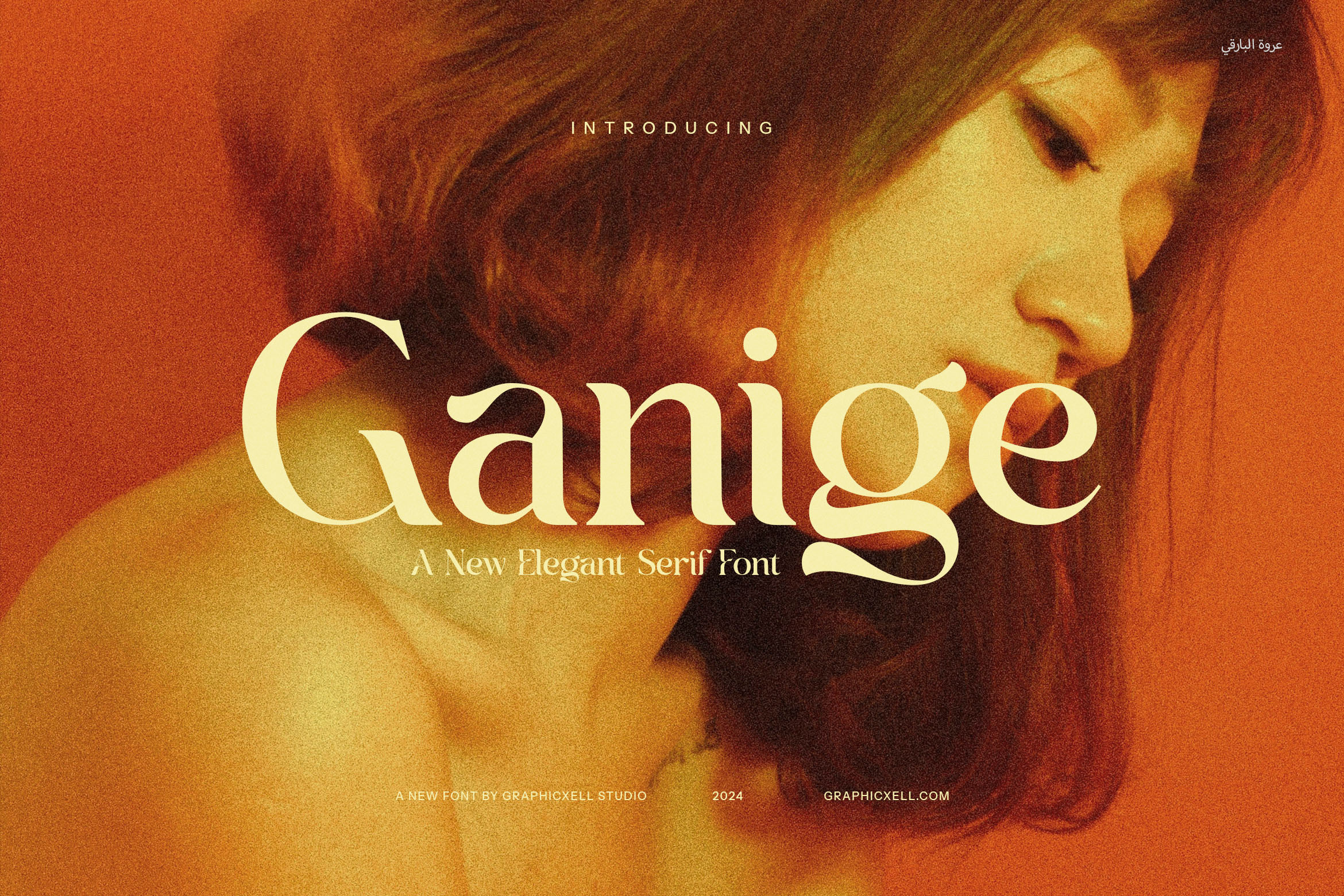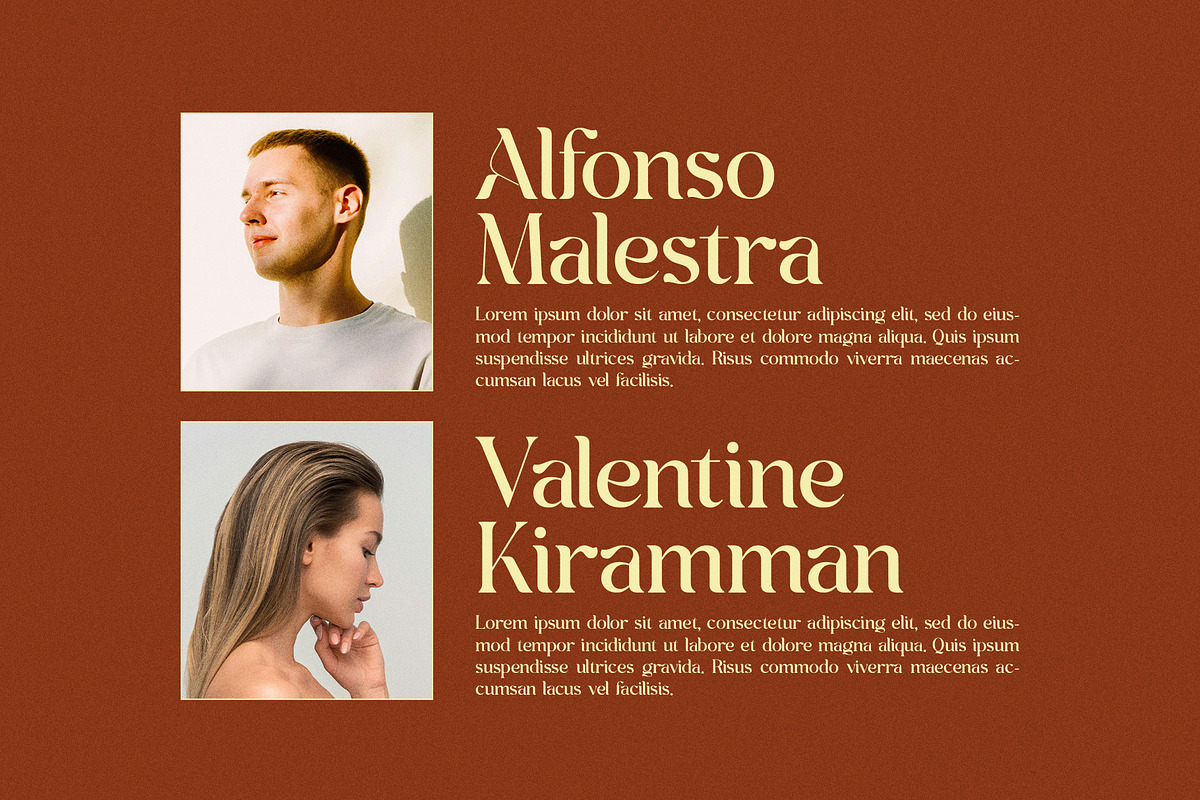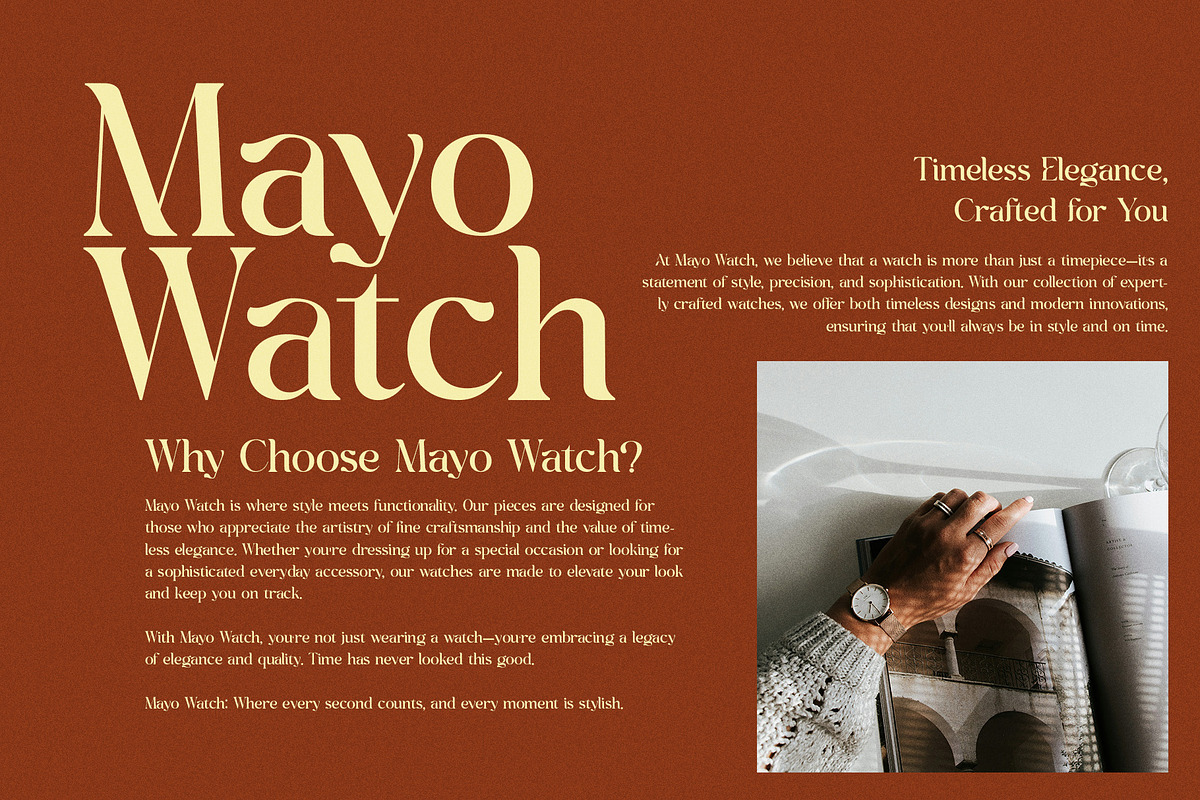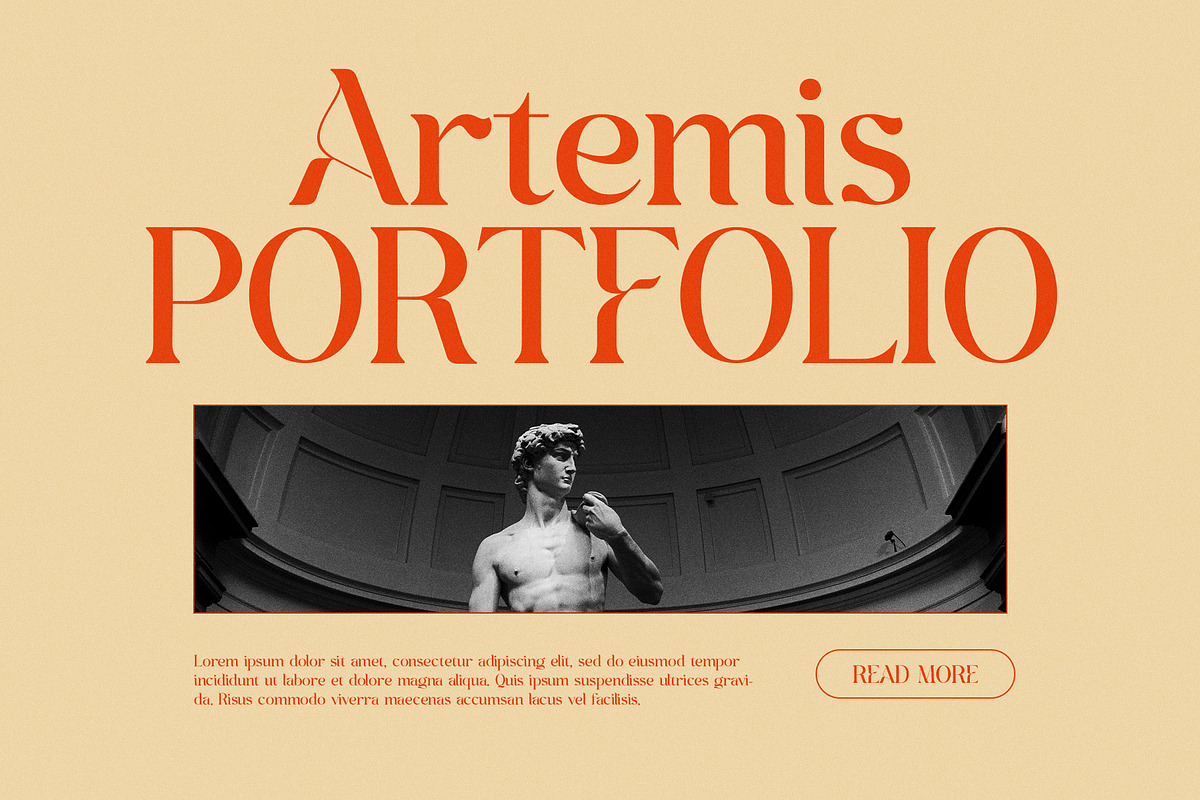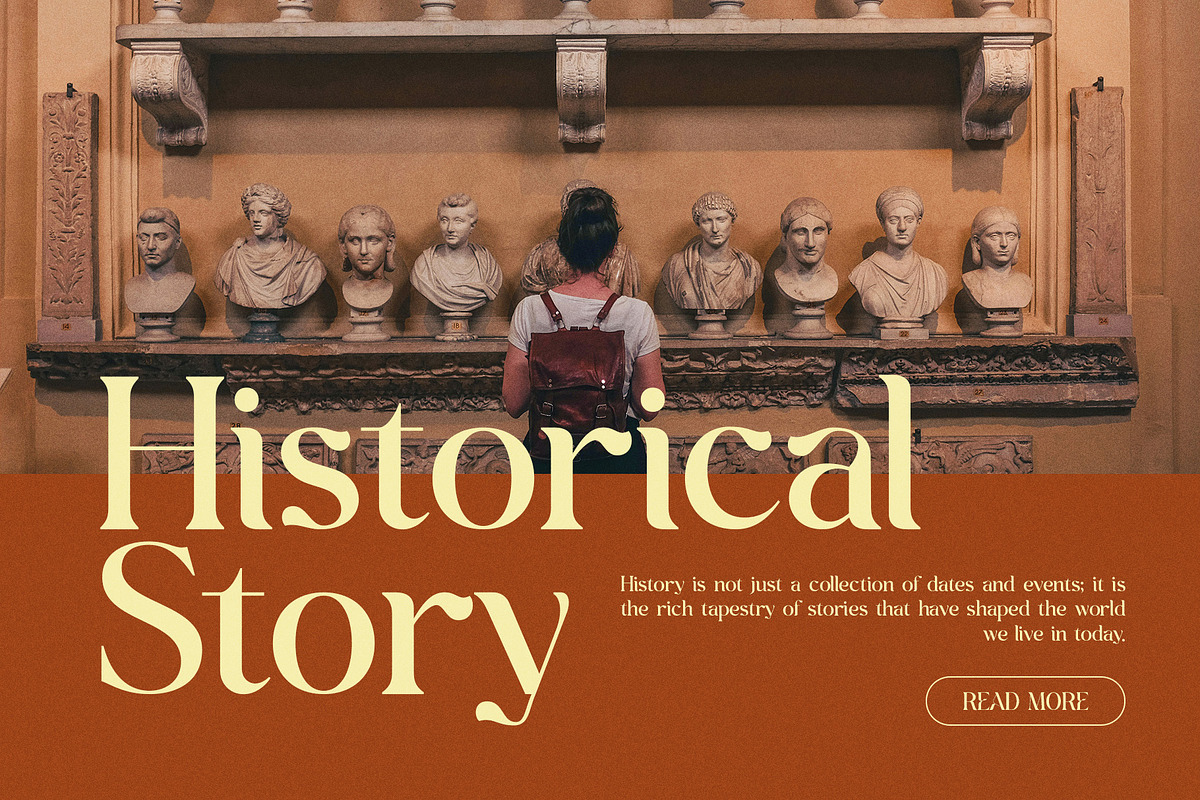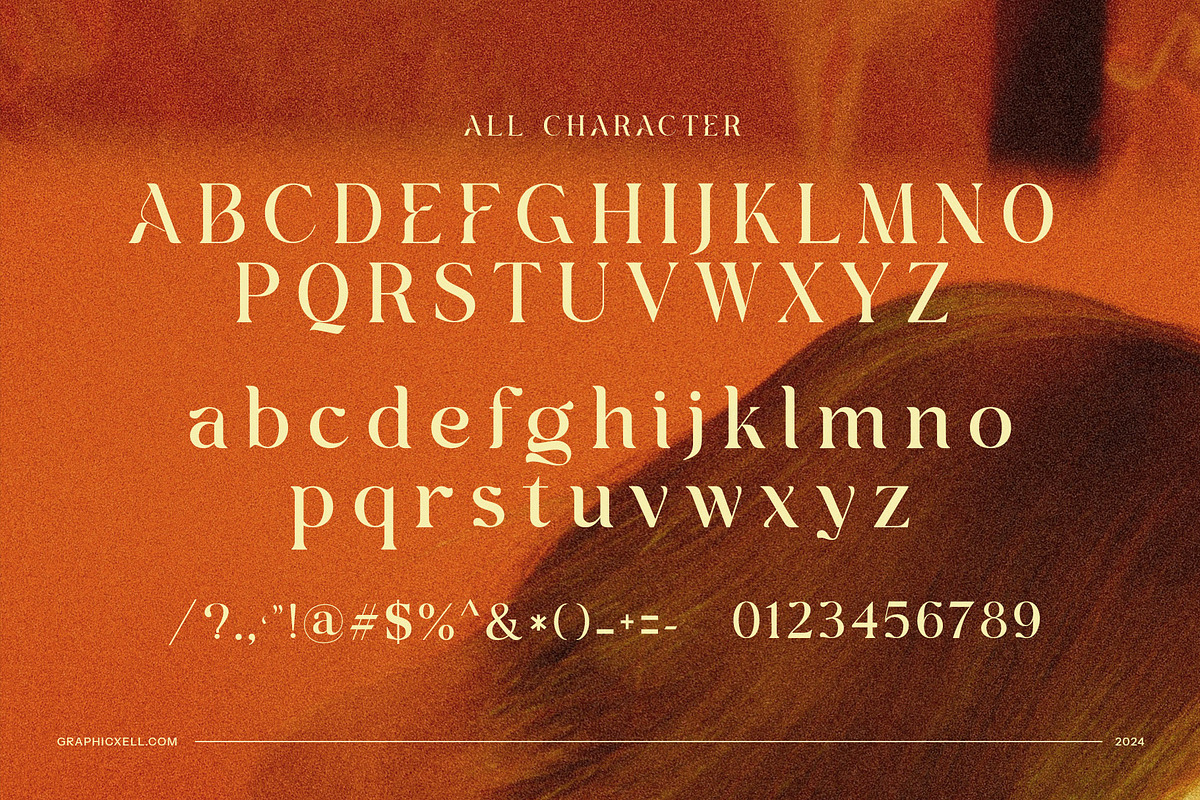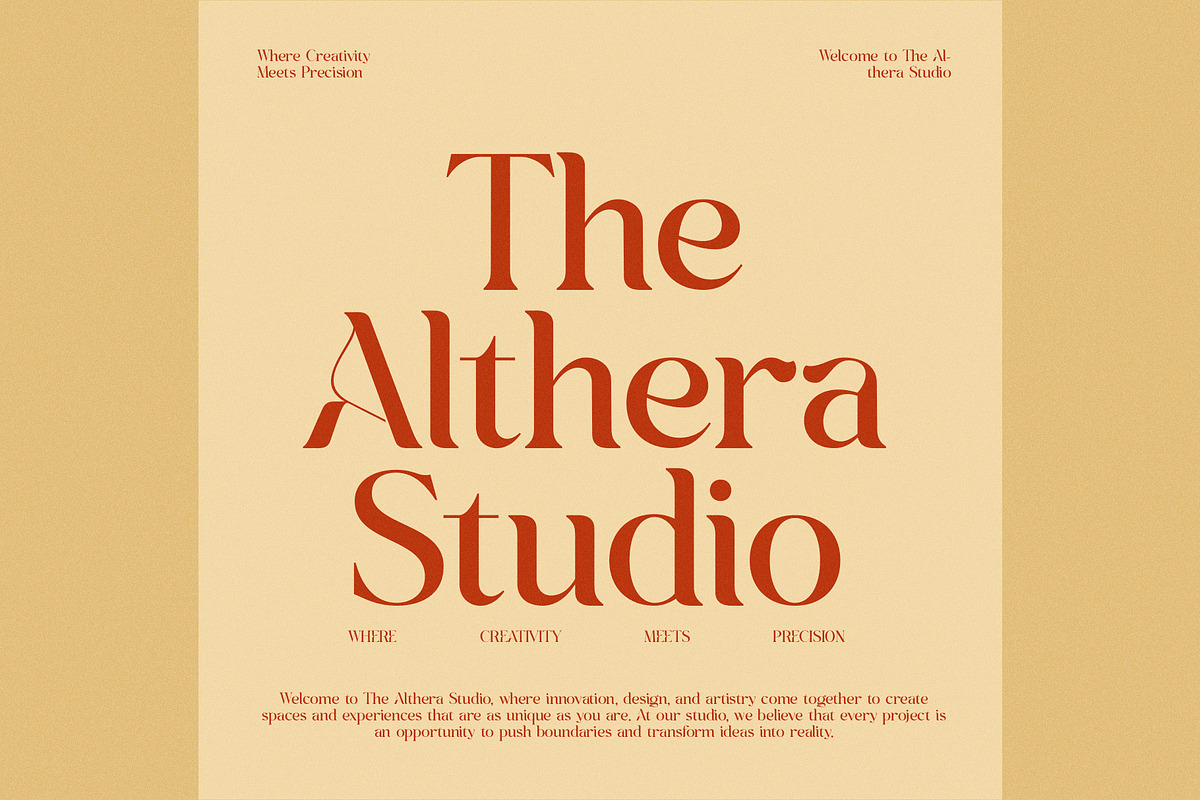
Ganige Elegant Serif Font
Ganige Elegant Serif Font is a stunning typeface that masterfully combines vintage elegance with modern sophistication. Its refined serifs and distinctive letterforms give it a unique charm that stands out in both contemporary and classic design applications. With its graceful curves and timeless appeal, Ganige brings a sense of history and luxury to any project, making it perfect for those seeking to add an air of refinement and exclusivity to their designs.
Whether you're crafting a bold logo, creating an eye-catching brand identity, or designing a stylish website, Ganige delivers an unparalleled sense of elegance. Its vintage-inspired design is ideal for projects that require a sophisticated, high-end look, such as luxury products, boutique branding, food packaging, and upscale advertisements. The font's versatility ensures that it shines across a variety of media, from magazines and brochures to product labels and digital layouts.
Ganige’s beauty lies in its ability to be both nostalgic and contemporary. Its carefully crafted serifs and balanced proportions offer excellent readability while maintaining a sense of character. This makes it a great choice for editorial designs, marketing materials, and any project where legibility and aesthetic appeal are key.
Designed to elevate any project, Ganige Elegant Serif Font brings a unique blend of vintage charm and modern elegance. Its versatility makes it a perfect fit for luxury brands, boutique businesses, and other creative endeavors looking to leave a lasting impression with style and sophistication.